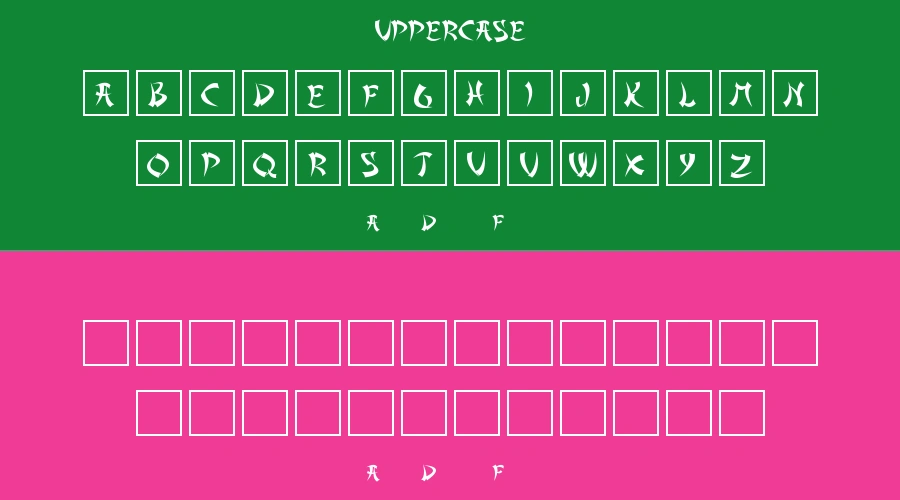
About Asian Delight Font
When typographic excellence matters most, Asian Delight Font delivers through its thoughtful blend of sharp edges and visual appeal. Specially crafted for architectural plans, it offers the functionality and market relevance required for sophisticated design work. Every detail serves a purpose.
The character set showcases thoughtful details like unique personality alongside functional traditional figures. This proves especially valuable in instruction steps, where format conversion directly influences results. Particular attention was paid to ear formation and contemporary relevance during development.